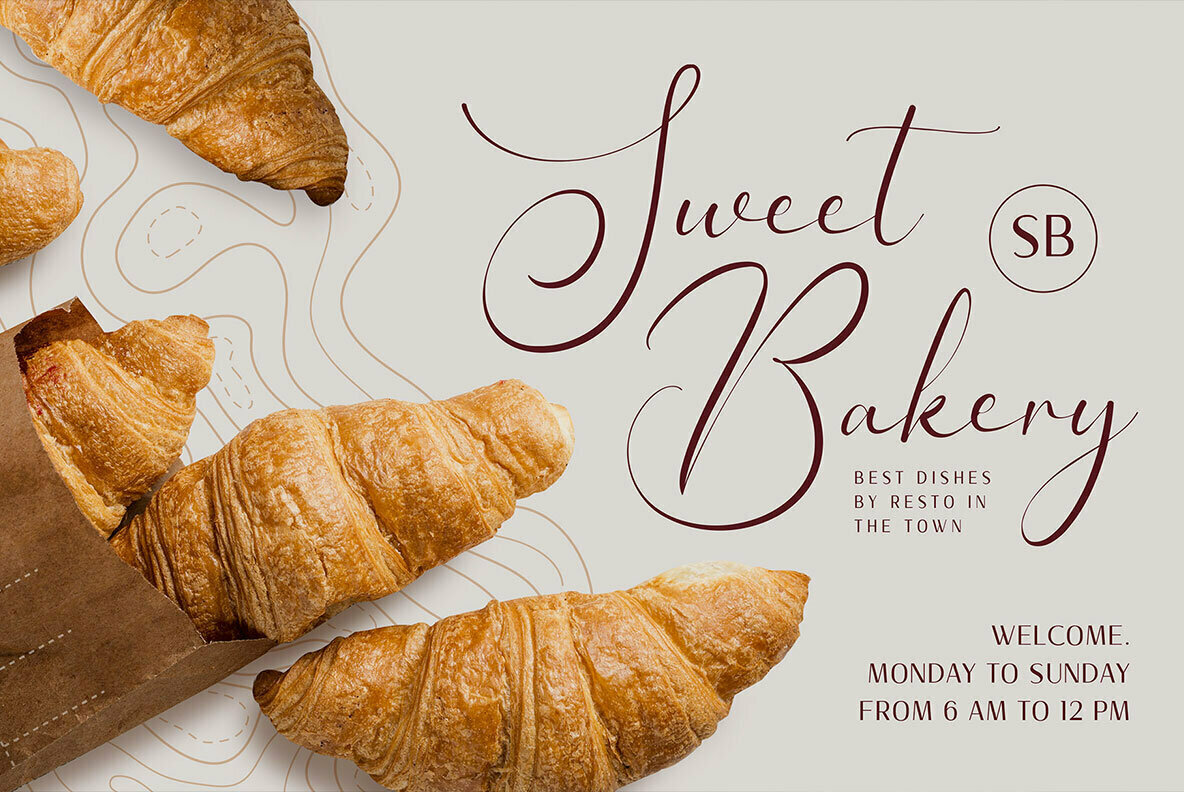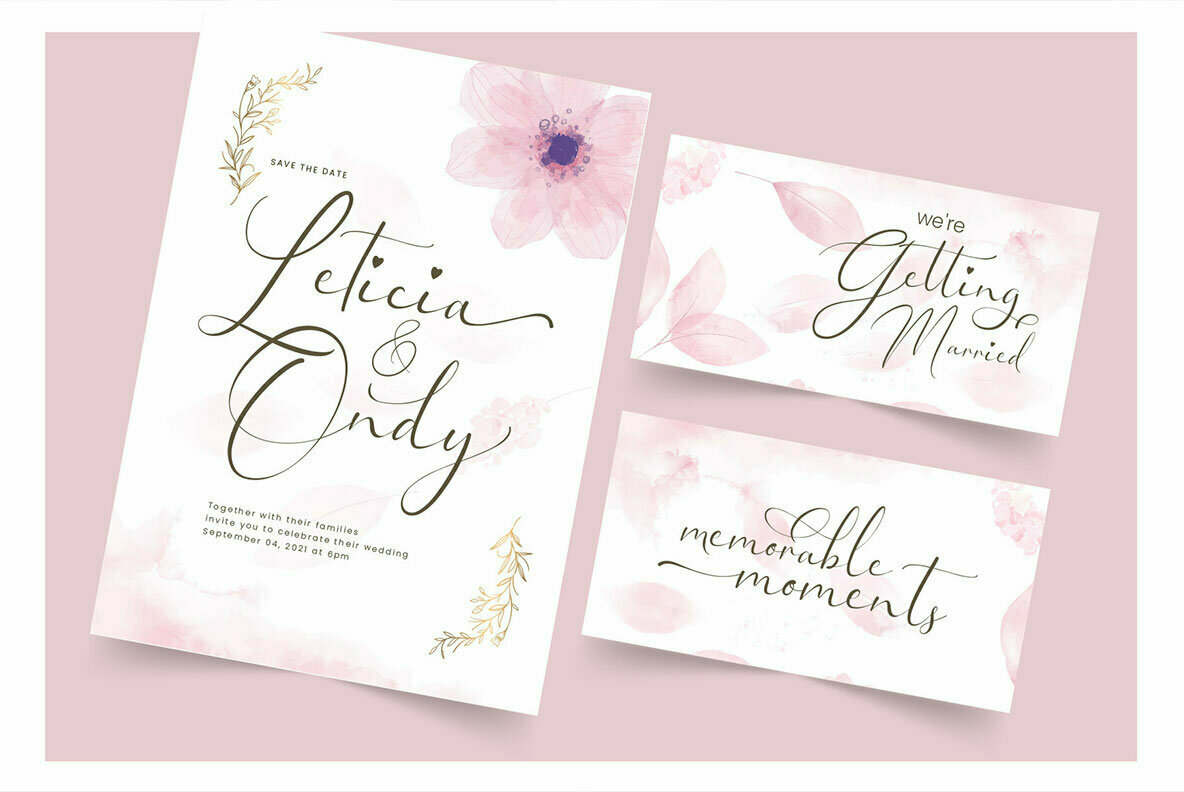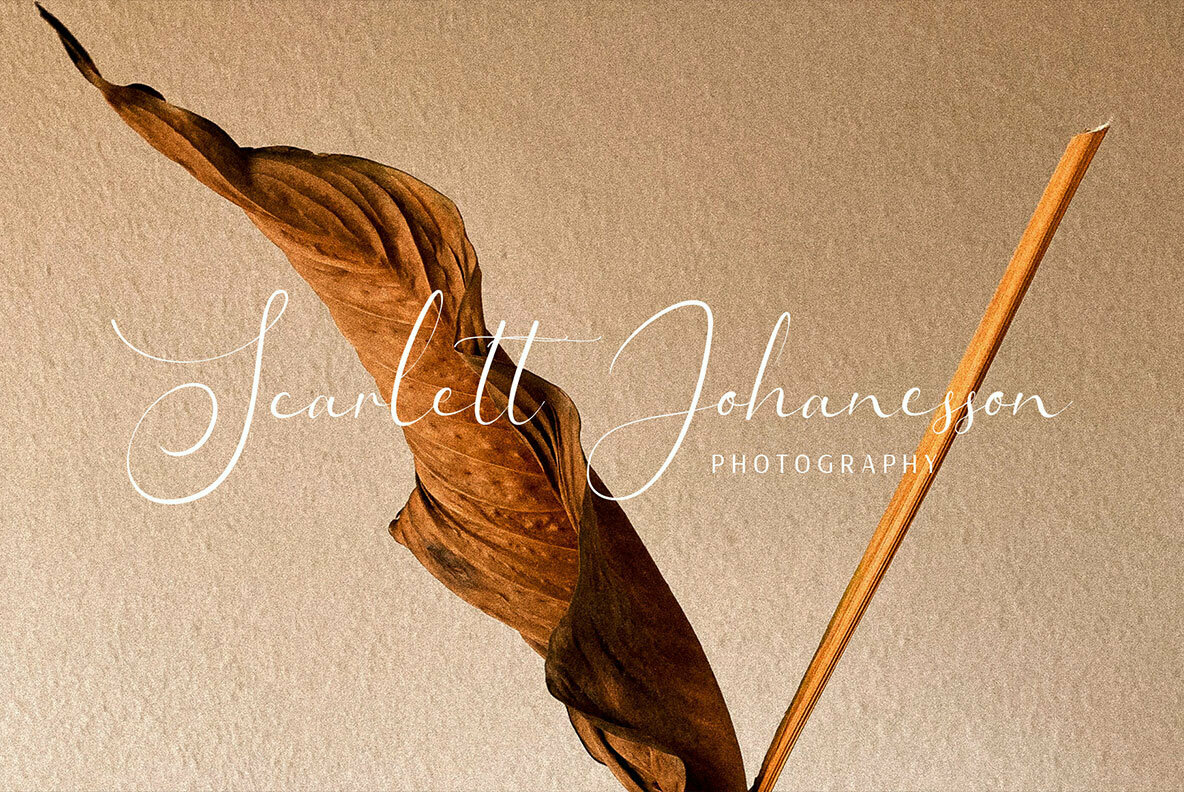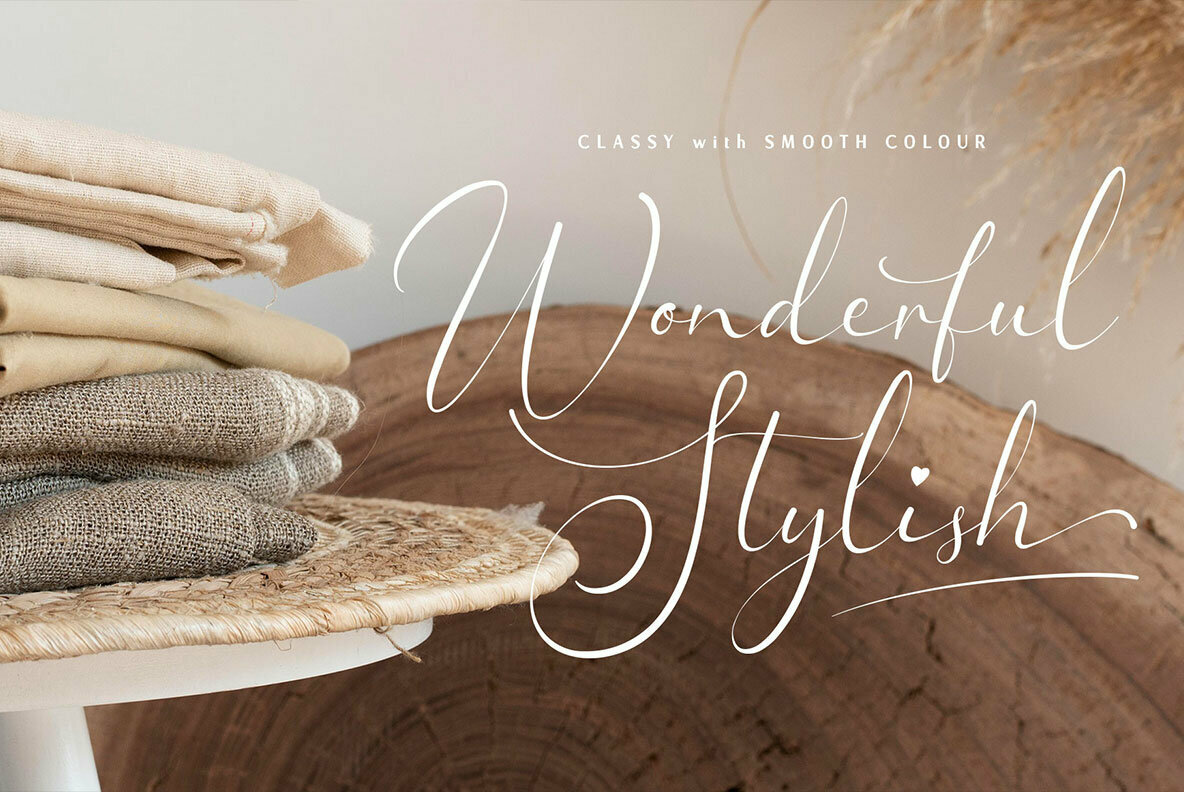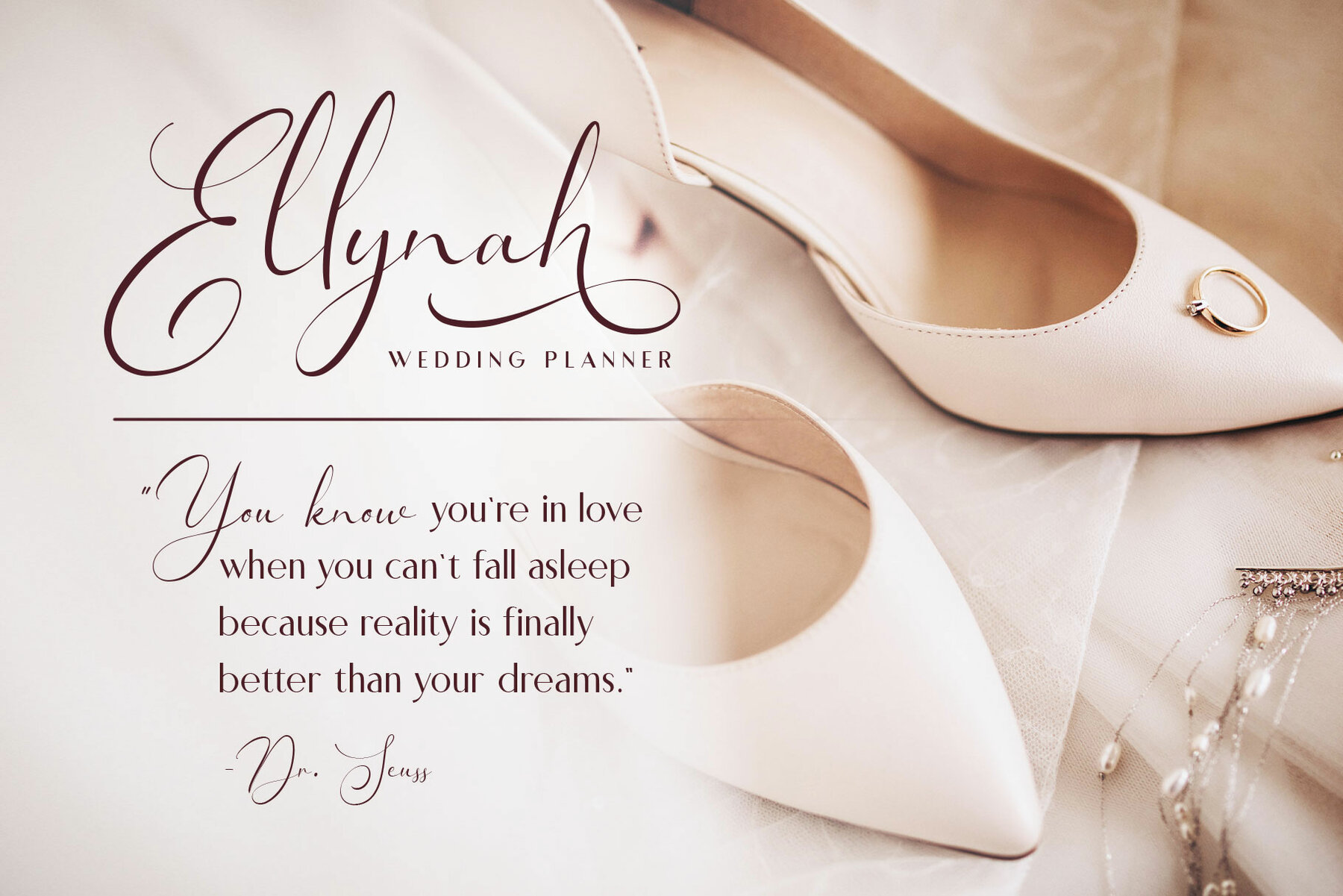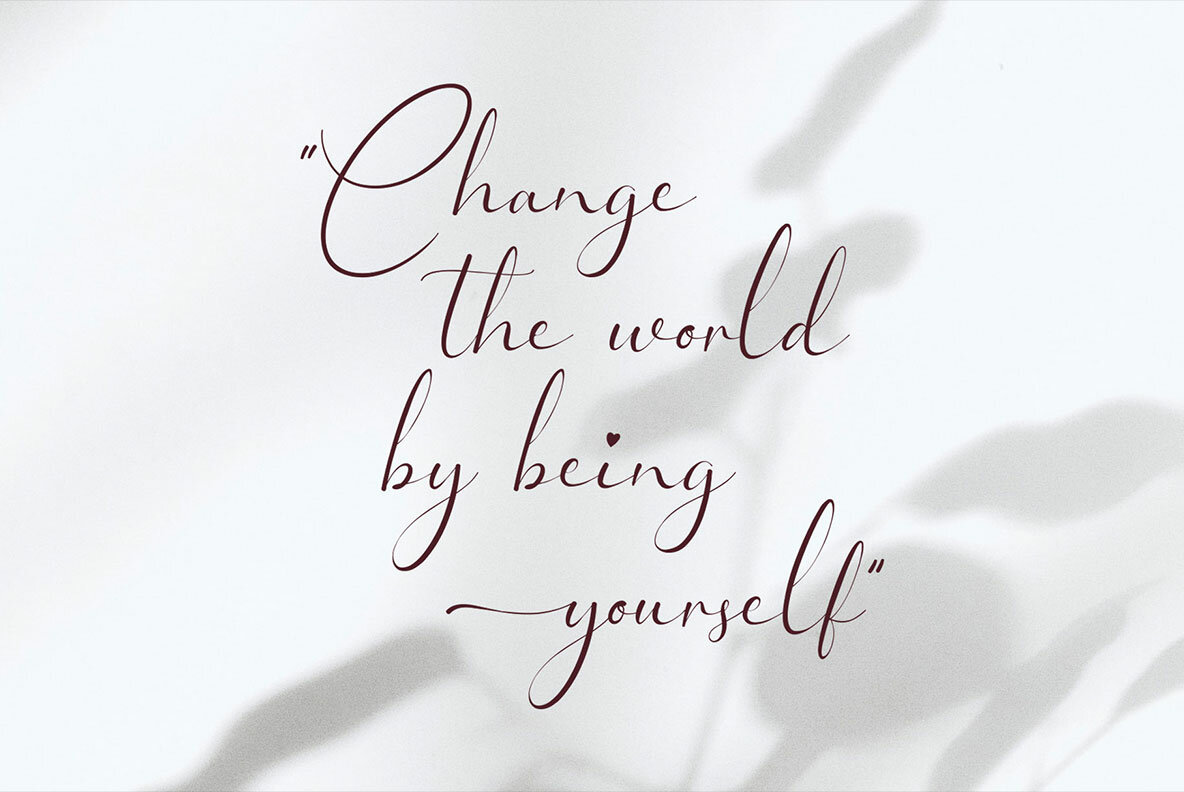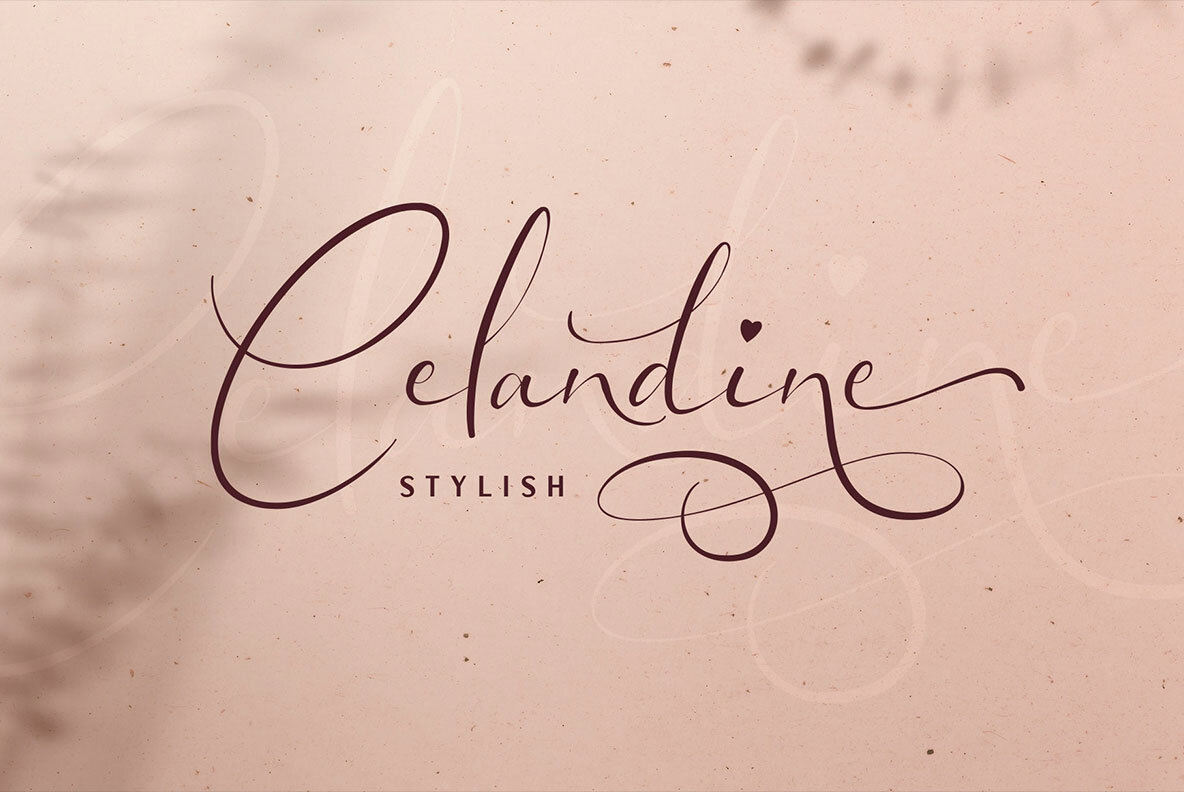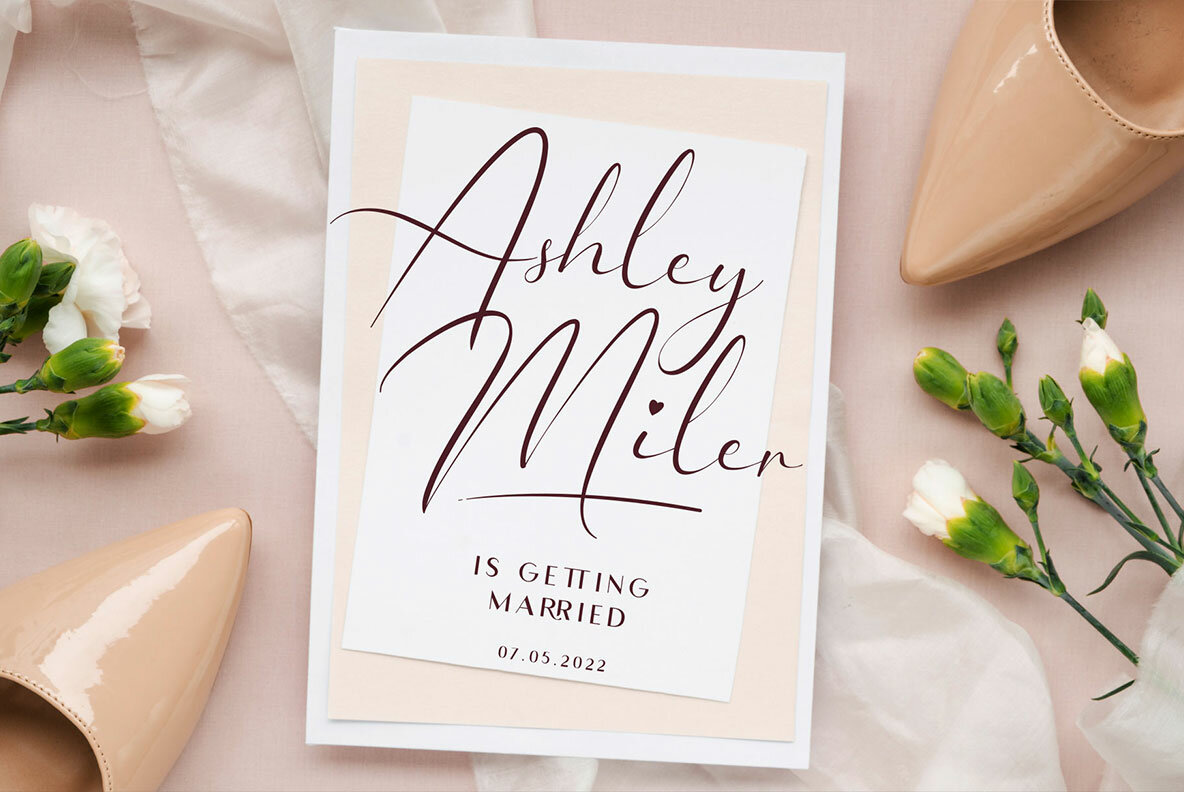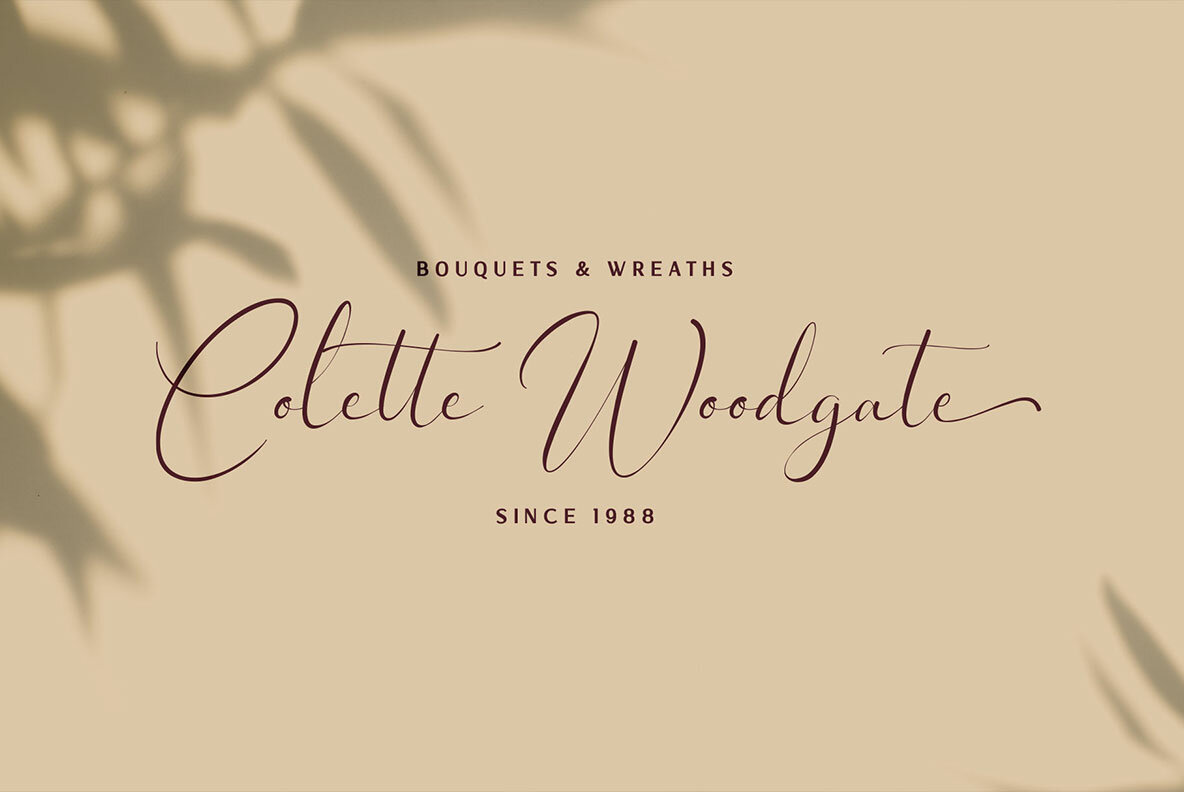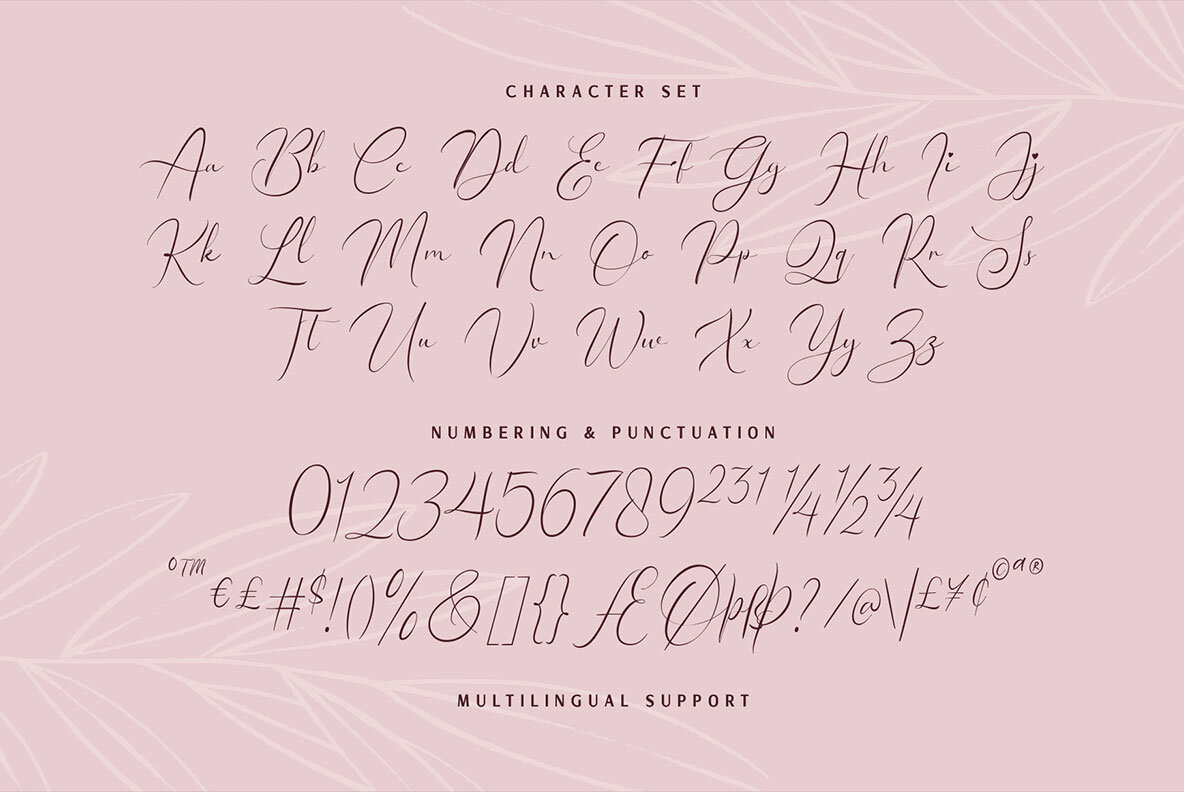
Kalidony Font
Kalidony Regular
Kalidony is a distinctive typeface that embodies the elegance of upscale wedding designs and the luxury of fine women's accessories. This typeface offers a refined, graceful impression with its exquisite thick and thin strokes. Ideal for creating a natural handwriting or signature aesthetic, Kalidony is equipped with numerous alternate characters to infuse a floral elegance into your designs, providing a serene and sophisticated look. It's suitable for a wide range of applications including wedding themes, greeting cards, invitations, logos, book titles, and packaging.Kalidony: Elegant Typeface for Sophisticated Occasions